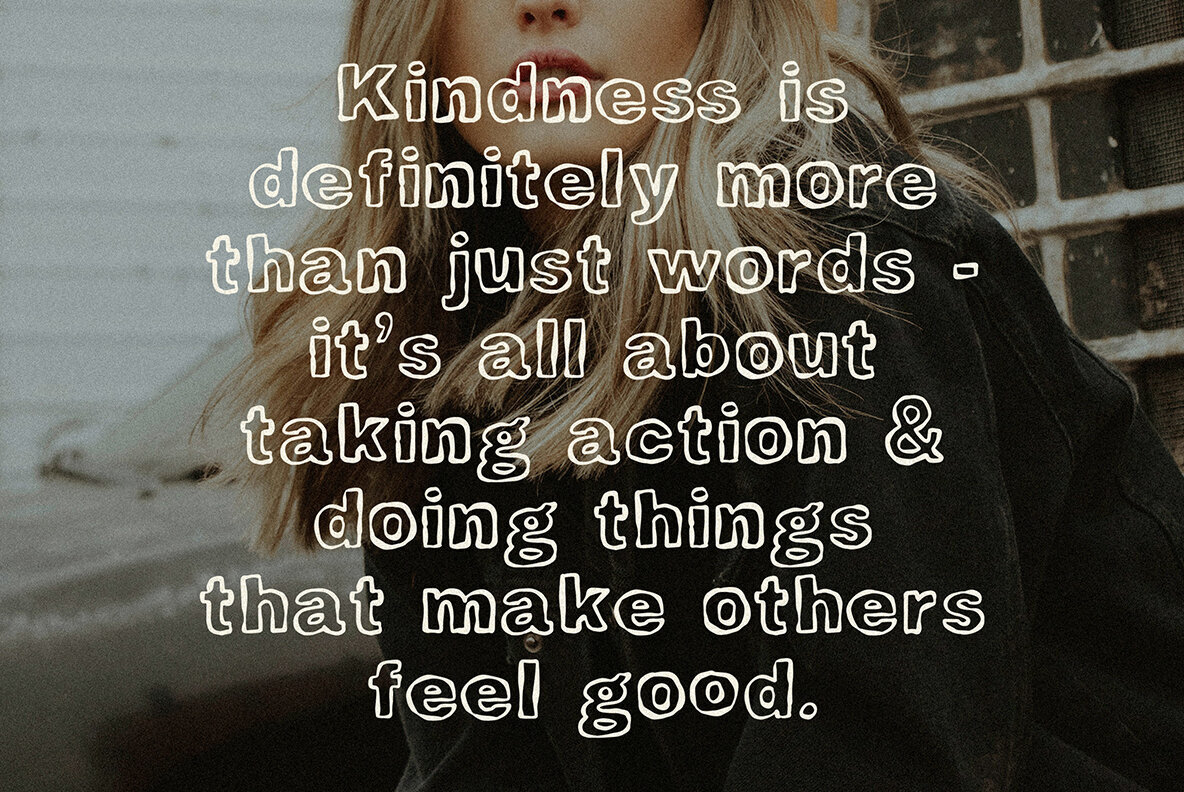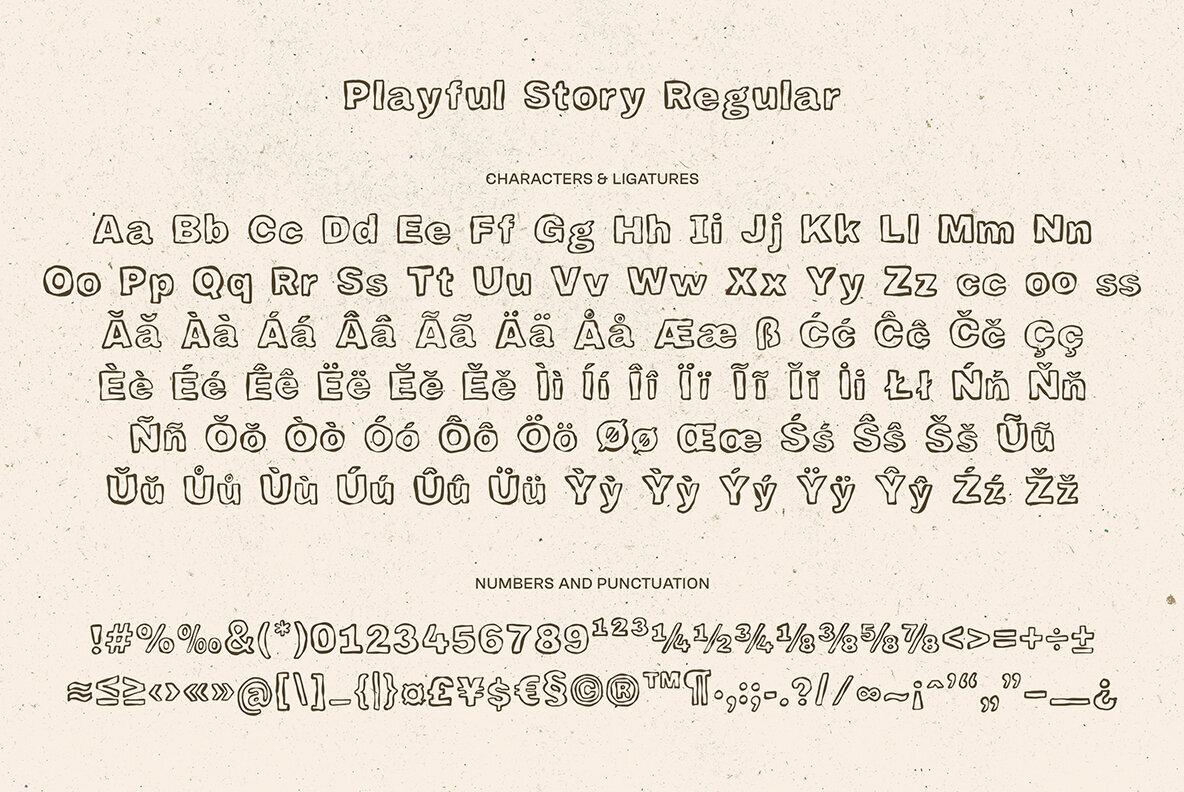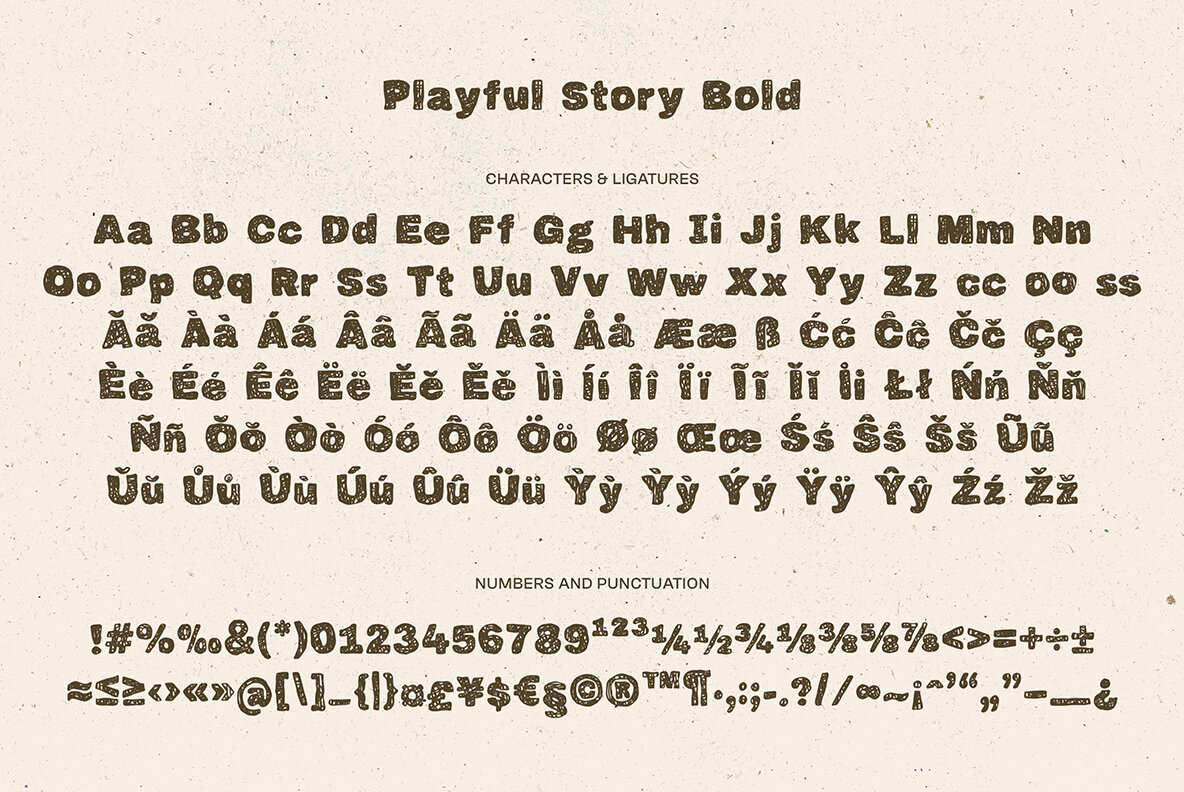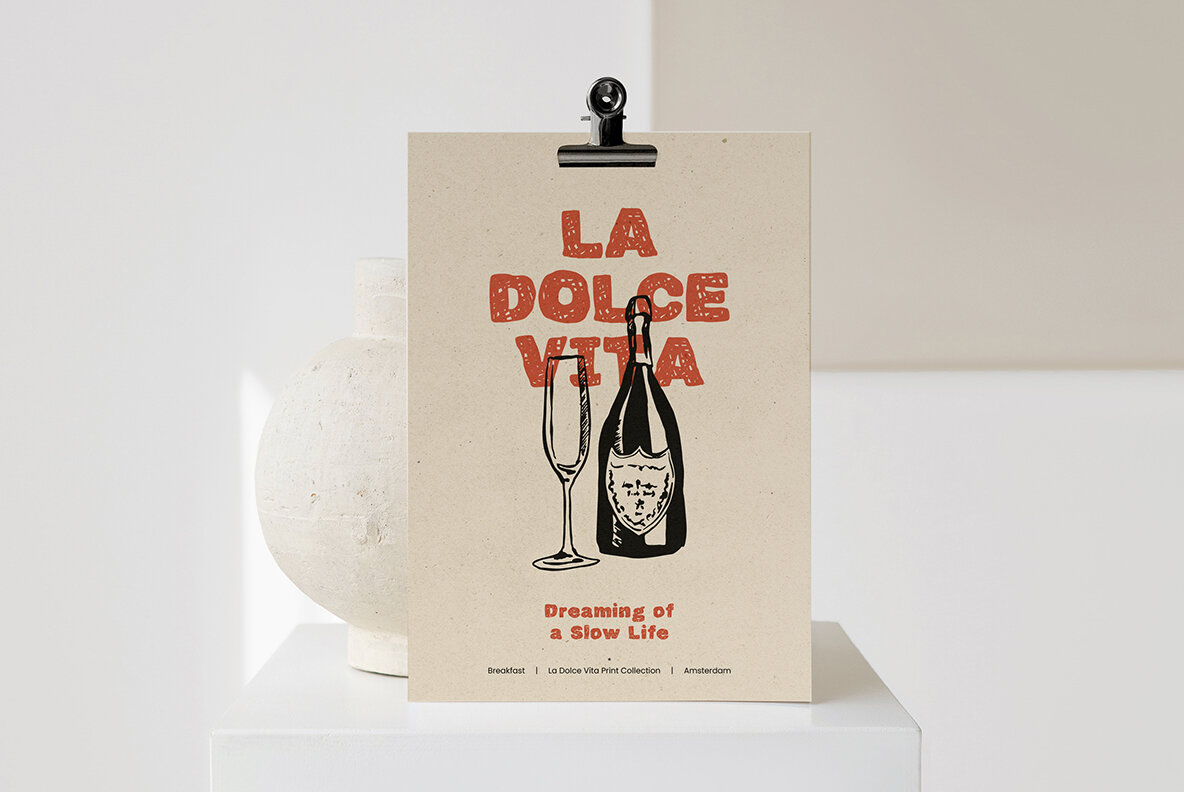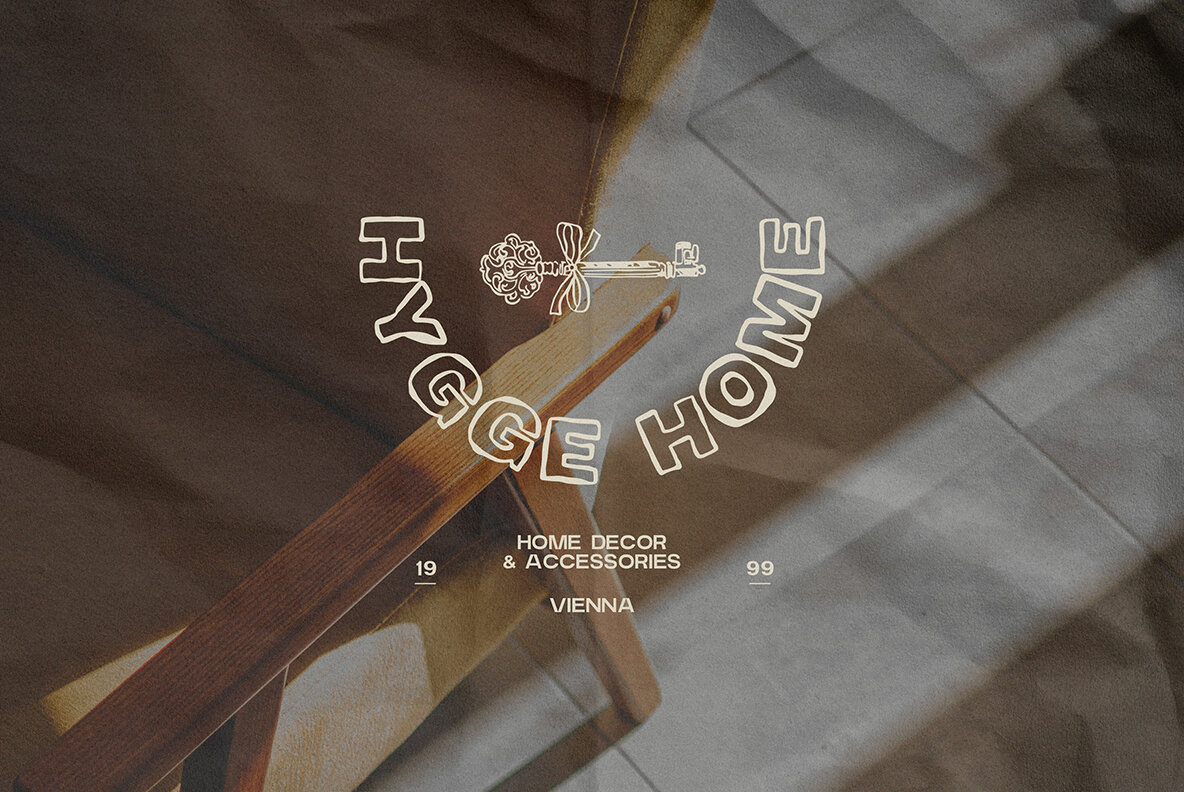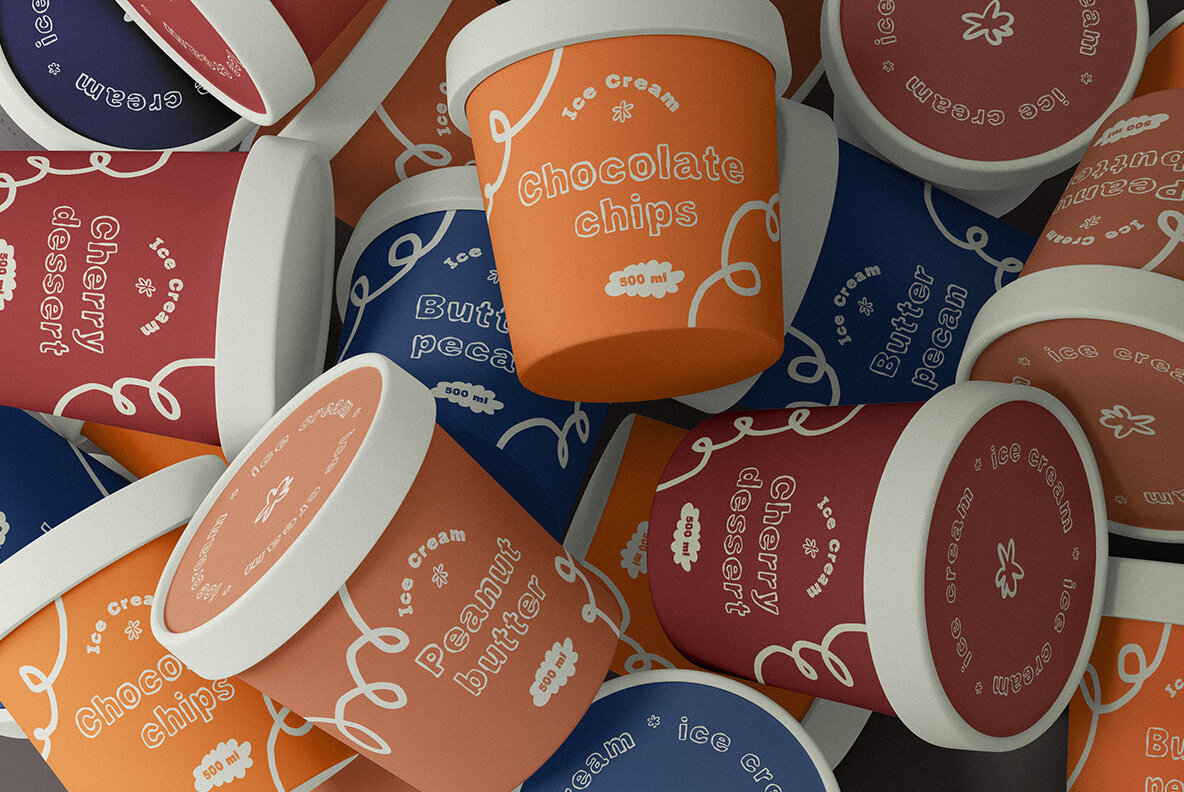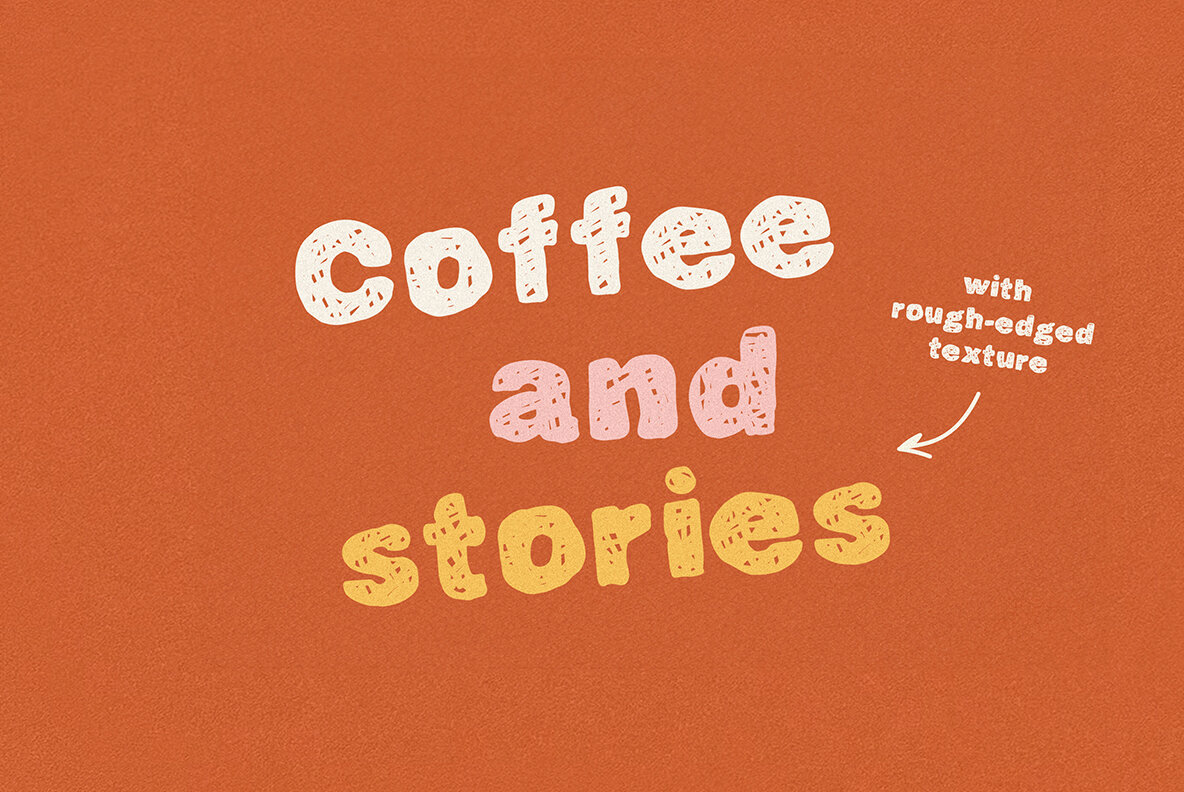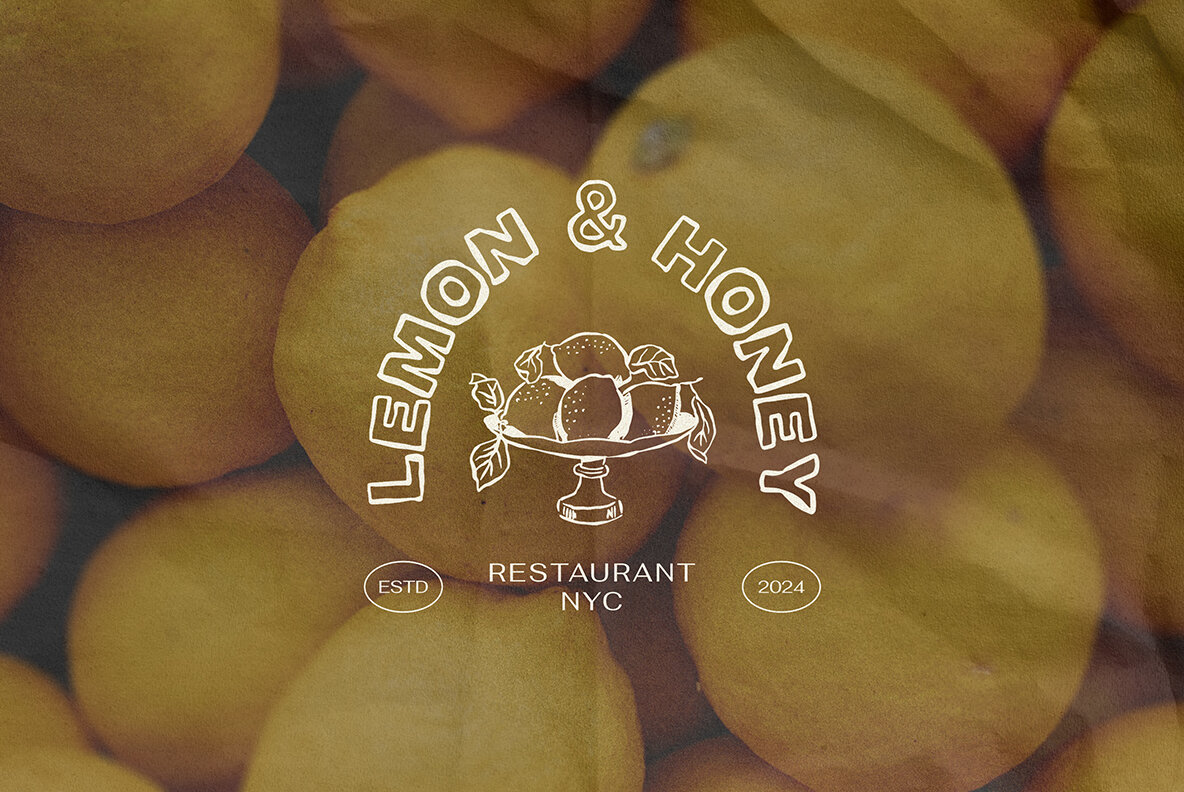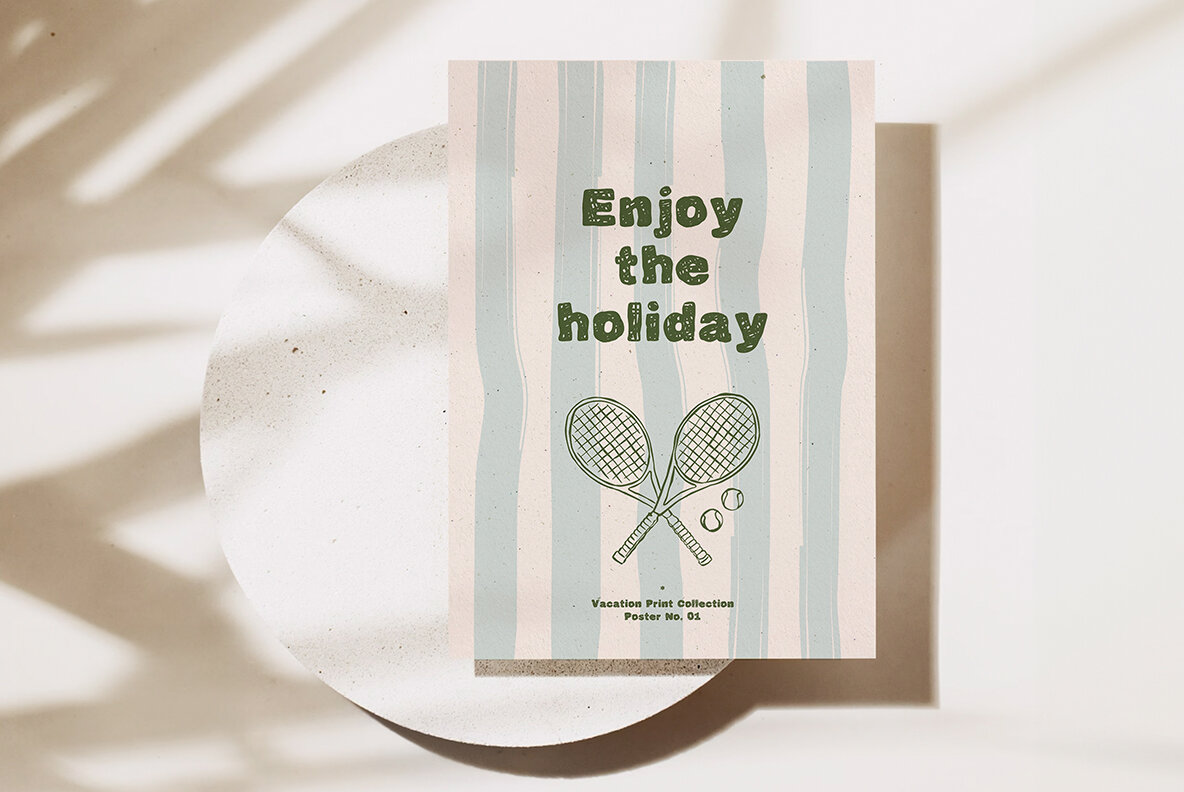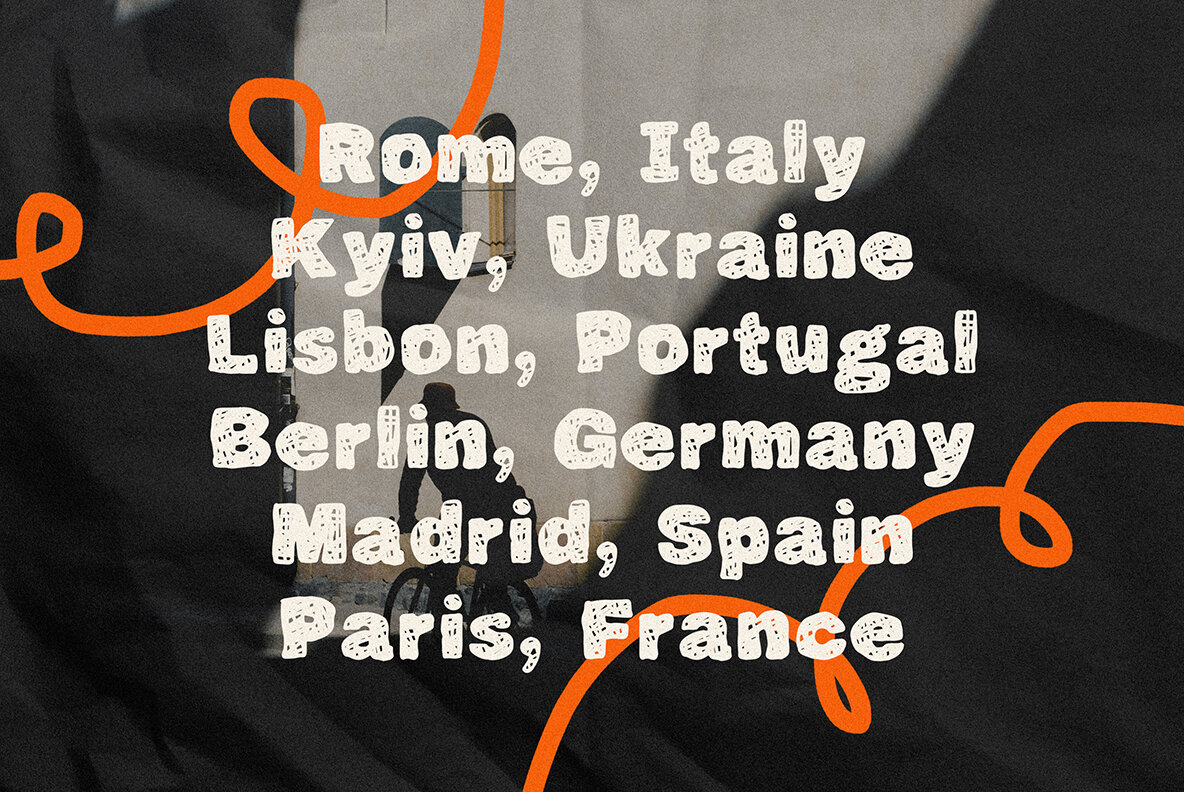
Playful Story Font
Playful Story Regular
Playful Story Bold
Say hello to the rustic, rough-edged Playful Story duo script. This delightful pair of handwritten outlined and filled fonts is fun to work with. They are perfect for children's books, greeting cards, packaging design, brand identity, art posters, and more. Language support for: Danish, English, French, German, Low German, Luxembourgish, Norwegian Bokmål, Norwegian Nynorsk, Portuguese, Spanish, Swedish, Swiss German. Note: Mock-ups are only for presentation and not included into the purchase.